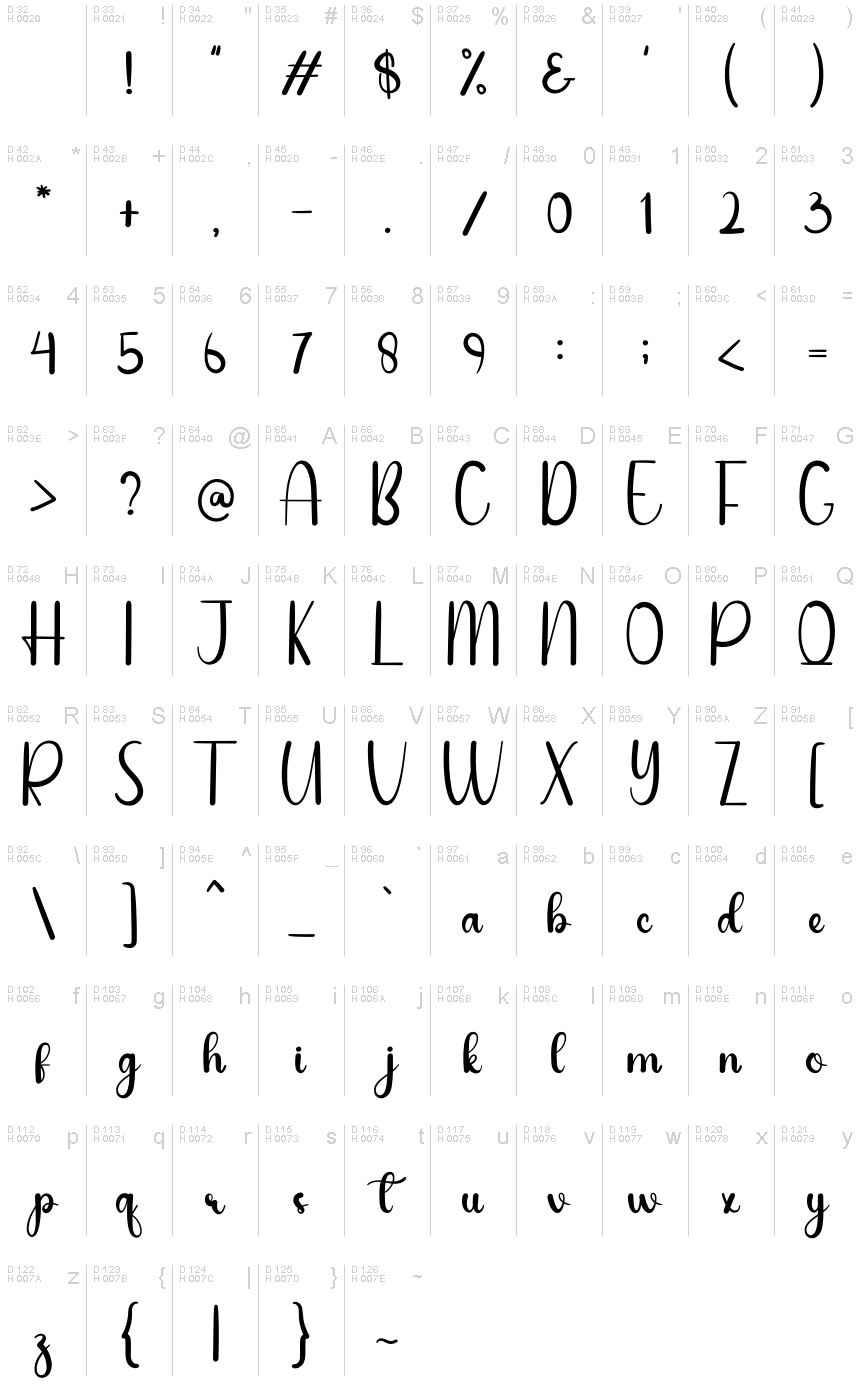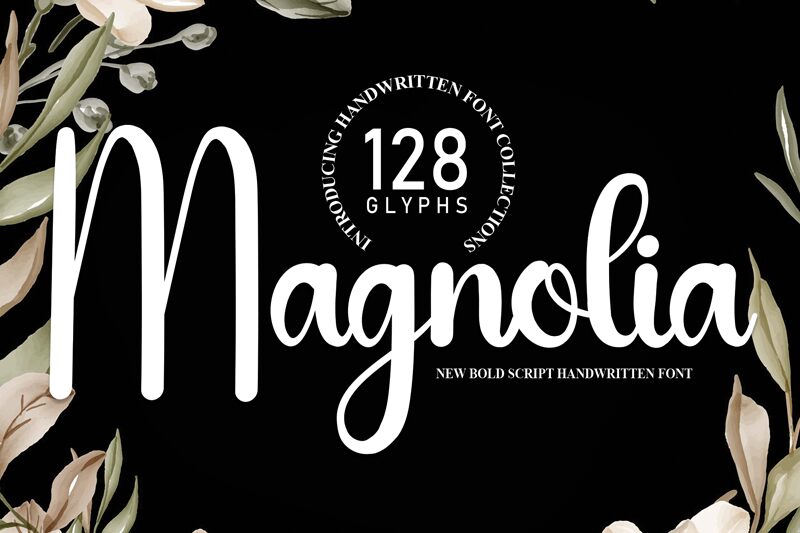
Magnolia
Magnolia, a creation of Scratchones, is a handwritten font that emanates charm and personality. With its fluid strokes and distinct letterforms, this typeface mimics the natural variations found in human penmanship. The elegance of Magnolia lies in its subtle balance between casual spontaneity and meticulous craftsmanship.
The aesthetic appeal of Magnolia is undeniable; it bears an organic, approachable feeling that's often sought after in design projects requiring a personal touch. Its irregular line weights and slightly varied baselines contribute to an impression of authenticity and warmth.
This font finds itself perfectly at home in contexts where the human element needs to be underscored—think wedding invitations, personalized stationery, or branding for boutique businesses where individuality stands at the forefront. Magnolia's legibility doesn't sacrifice style for function, making it equally suitable for longer texts where readability remains paramount.
In essence, Magnolia bridges the gap between approachability and sophistication with its handcrafted allure—a versatile tool for designers aiming to inject a dose of genuine character into their work.